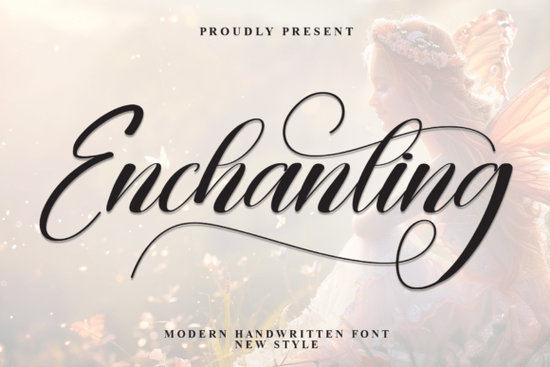
If you’re designing a fairytale book cover, putting together romantic wedding stationery, or crafting elegant product labels, the right script can turn simple words into a magical experience. Enchanting Font is a modern handwritten script built exactly for these moments. Its high‑contrast strokes, fluid loops, and sweeping swashes bring a dreamy, almost cinematic feel to everything from short quotes to boutique logos. The letterforms feel alive full of movement and a soft mystery that makes text look like hand‑inked poetry.
What makes this script font feel so whimsical?
At first glance, Enchanting Font looks like calligraphy caught in a gentle breeze. The contrast is intentionally dramatic: thick downstrokes press firmly like a flexible nib, while hairline upstrokes curve into airy loops. Many characters end in long, flourishes that extend past the baseline, giving words a sense of flight. It’s not an overly formal copperplate there’s a playful, modern bounce that keeps it from feeling stiff. Whether you spell out “Once Upon a Time” or a simple thank‑you, the rhythm of the letters draws the eye forward.
How do you use Enchanting Font for wedding materials?
Wedding suites are a natural home for this script. Invitation names, place cards, menu headers, and vow booklets all benefit from a typeface that feels personal and hand‑finished. Pair Enchanting Font with a clean serif or a light sans‑serif for body text to keep everything readable. Try using the standard letterforms for the couple’s names and then swapping in a swash alternate for the first letter of each name it instantly creates a curated, bespoke look without cluttering the card.
If you’re handling large events, the font also works beautifully on signage, table numbers, and even projected slides during speeches. The high contrast stays visible at a distance, and the handwritten character adds warmth to modern, minimalist décor. Many crafters also use it for laser‑cut wood signs or acrylic toppers; the smooth curves cut cleanly and read well as a silhouette.
Which creative projects can you start today?
Small business owners, print‑on‑demand sellers, and crafting hobbyists can use a font like this for a surprising range of products. Here are a few ideas where Enchanting Font fits right in:
- Candle labels and soap wraps: The swirling lowercase letters look luxurious on glass amber jars or linen‑textured paper.
- Fantasy book covers and storybook interiors: Drop caps and chapter headings become instant eye‑catchers, especially on dark backgrounds with gold foil effects.
- Romantic quote prints and digital wall art: Short phrases like “Happily Ever After” or “You Are Magic” feel grander when every letter has its own personality.
- Product packaging for beauty or jewelry brands: The font’s elegant, slightly mysterious vibe matches boutique perfumes, hand‑poured bath salts, or delicate accessories.
- Enamel pins and sticker sheets: Even tiny, the bold downstrokes stay crisp, so you can shrink a single letter into a monogram pin.
Is this font suitable for branding and logos?
Absolutely especially for brands that want to feel hand‑crafted and story‑driven. A tea shop, a cake bakery, or an event planning studio could build a visual identity around this script. The key is to use it sparingly: let the font shine on the main brand name while supporting text stays simple. Many of the alternate glyphs let you tweak the connection between letters, which means you can create a custom logo‑style lockup without drawing a single stroke yourself. For more inspiration on how script letterforms have evolved and how they fit branding, you might explore the historical roots of script fonts understanding the heritage often sparks fresh ideas for modern designs.
How does it compare to other romantic scripts?
Many romantic scripts lean either ultra‑formal (think classic calligraphy) or extremely casual (like marker brush fonts). Enchanting Font sits in a sweet spot polished enough for a wedding invitation but lively enough for a fairy‑tale tee shirt. It shares the airy, hand‑drawn feel of fonts like a romantic typeface such as the I Love You font, yet its swashes are more dramatic and fantasy‑oriented. Meanwhile, fun birthday designs can use Happy Birthday Duo for a bouncy, celebratory look, but that script’s energy is more playful than whimsical. If your project needs a hint of mystery and a dash of elegance, Enchanting Font’s contrast and flow create a mood those other styles don’t quite capture.